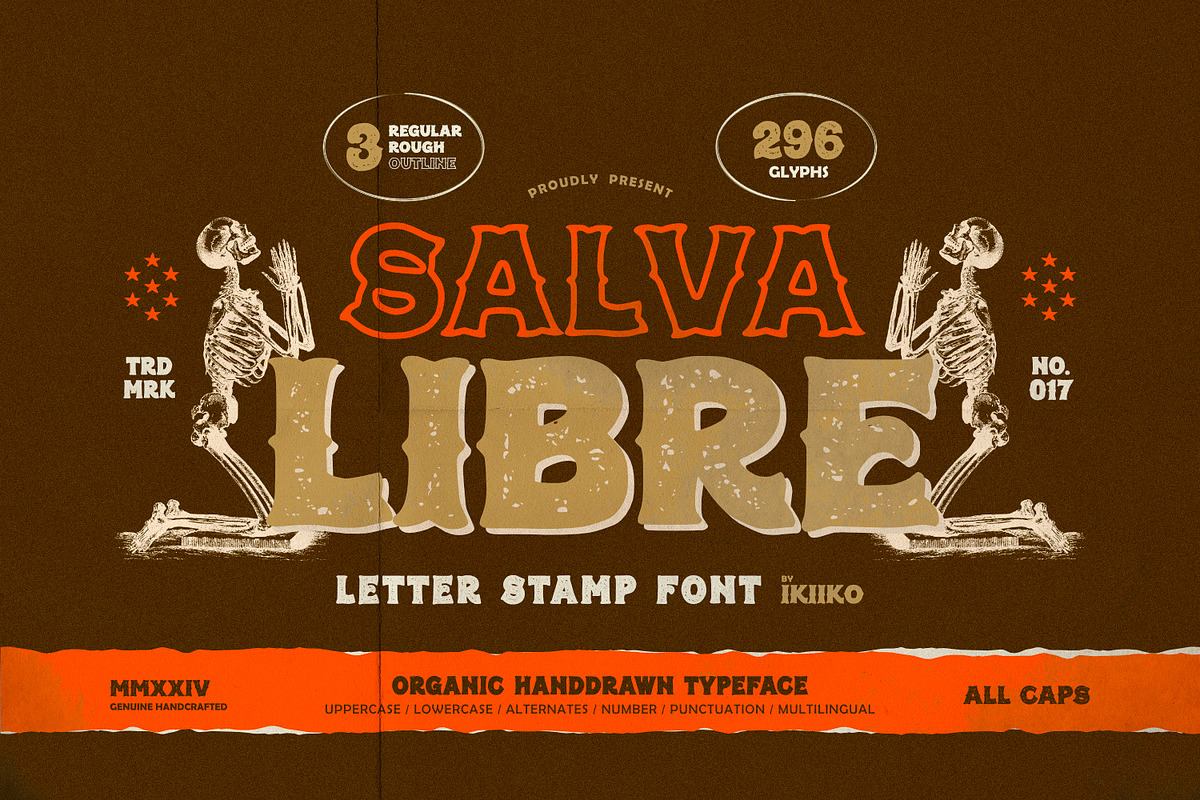
Salva Libre - Letter Stamp Font Free Download
Salva Libre - Letter Stamp Font Free Download is a bold and unique typeface that mimics the look of stamped letters, giving your designs a raw, vintage feel. Perfect for logos, posters, branding, and creative projects, Salva Libre offers a strong, rugged look that stands out. Its distinct letterforms and textured design make it ideal for projects that need a bit of grit and character.